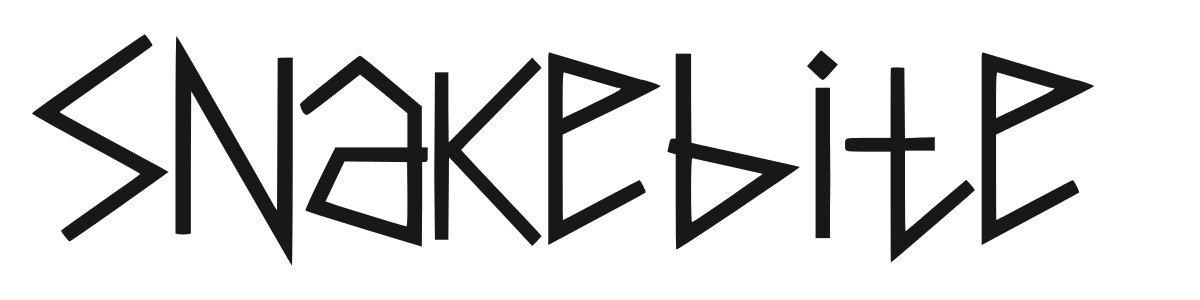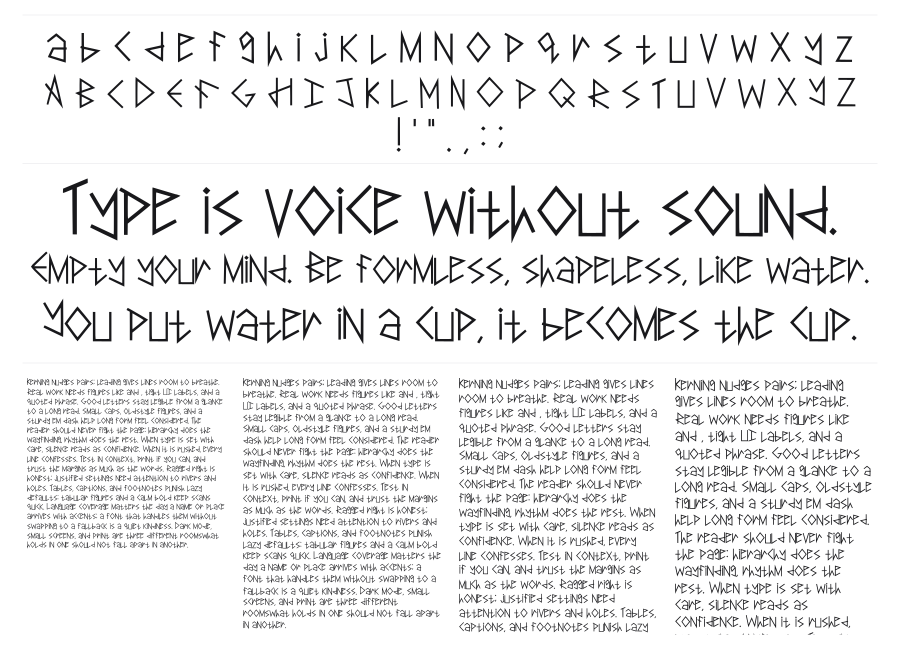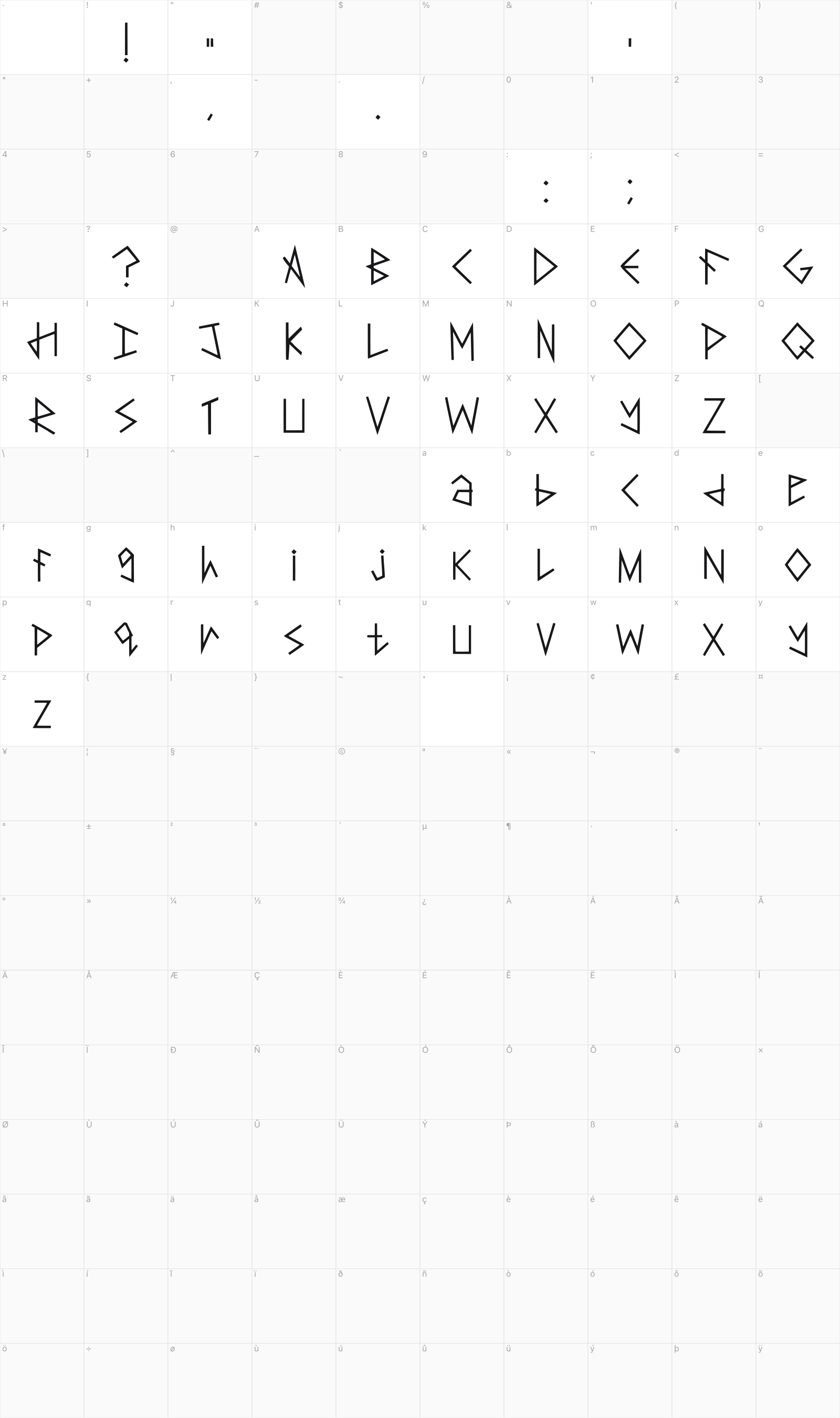
Snakebite
Snakebite is an angular display font that borrows its visual DNA from runic alphabets and primitive inscriptions. Each character is assembled from straight, sharply angled strokes that give the whole typeface a carved, scratched-into-stone quality. It suits dark or underground contexts: band logos, game titles, horror or metal aesthetics.